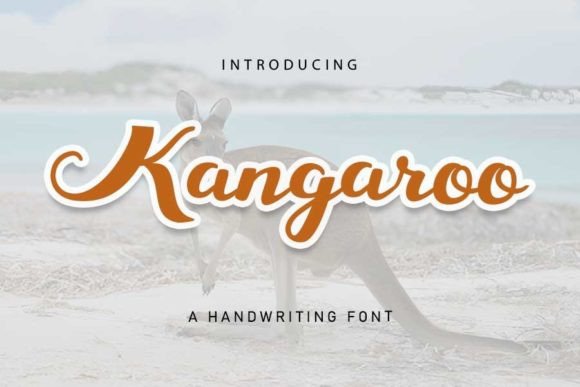
Introducing Kangaroo Font - A Handwritten Masterpiece That Captures the Essence of Authenticity and Elegance
In a world saturated with uniformity, Kangaroo Font emerges as a breath of fresh air, a font that embodies the beauty of individuality and the allure of handwritten expression. Crafted with meticulous care by the talented Leontyn Art, Kangaroo Font is a symphony of flowing strokes and graceful curves, a testament to the enduring power of human creativity.
Step into a realm where your words dance with a life of their own, where each letter carries the weight of emotion and the whisper of a personal story. Kangaroo Font is not merely a collection of characters; it is an invitation to embark on a journey of self-expression, to let your thoughts and ideas flow freely onto the digital canvas.
With its captivating script style, Kangaroo Font possesses an inherent charm that captivates and enchants. Its organic lines mimic the natural ebb and flow of handwriting, evoking a sense of intimacy and connection that is often lost in the sterility of digital communication.
Whether you're a passionate artist seeking to infuse your designs with a touch of authenticity, a creative entrepreneur looking to leave a lasting impression, or simply an individual seeking a font that truly reflects your unique personality, Kangaroo Font is the perfect choice. Its versatility knows no bounds, extending from personal branding and social media graphics to wedding invitations and heartfelt letters.
Immerse yourself in the world of Kangaroo Font and discover a font that is not just a tool, but an extension of your creative spirit. Let your words take flight, adorned with the elegance and charm of Kangaroo Font, and watch as they transform into captivating expressions that resonate with your audience.